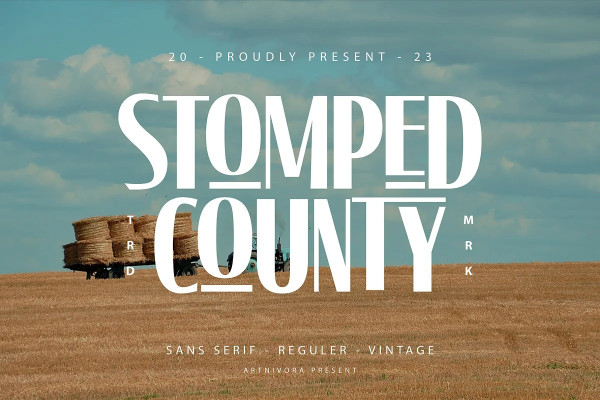
Stomped County Font
Stomped county Font, a simple and sans serif font. So perfect for you who needs a typeface for logo designs, magazine, social media, brochure, and many more.